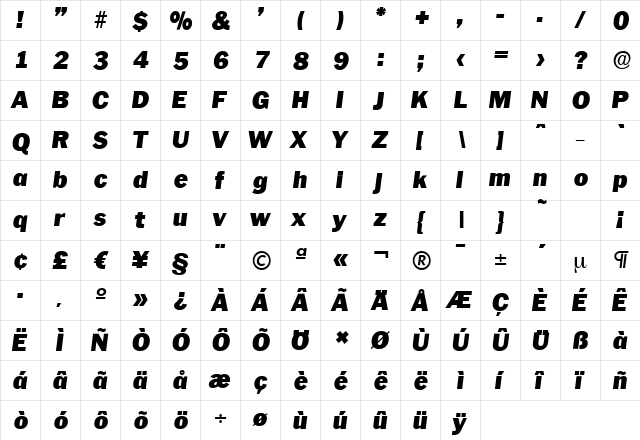
PlymouthSerial-Black Italic Font Preview
PlymouthSerial-Black Italic
PlymouthSerial-Black Italic Font Details
Design Context for PlymouthSerial-Black Typeface
PlymouthSerial-Black offers clean, dependable letterforms without strong stylistic allegiance, making it a practical choice for designers who need flexibility. Its italic angle brings a sense of urgency and motion to the letterforms.
Pro Tip: Try PlymouthSerial-Black for annotation and caption copy alongside an upright companion — the contrast in angle creates a dynamic but ordered typographic system.